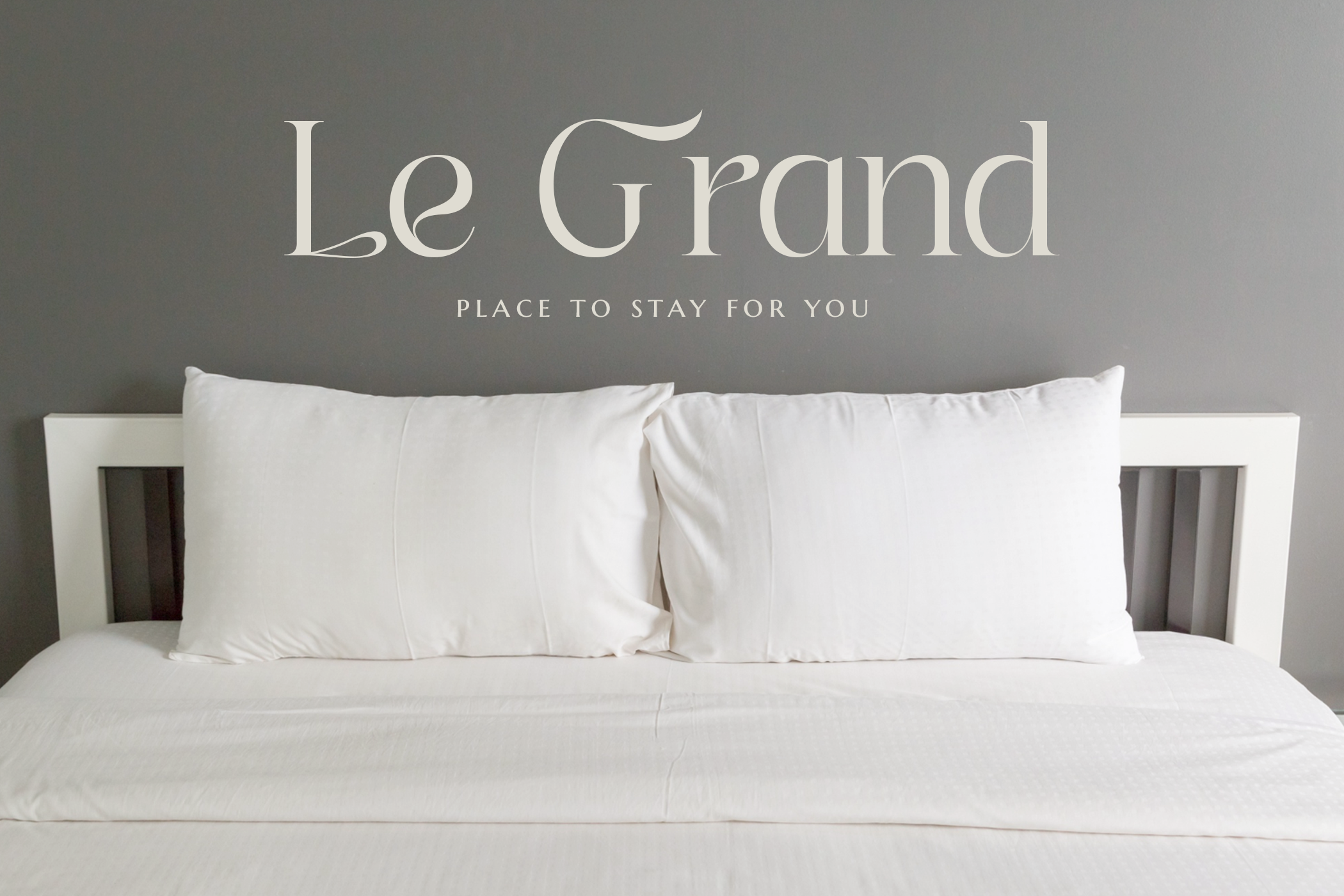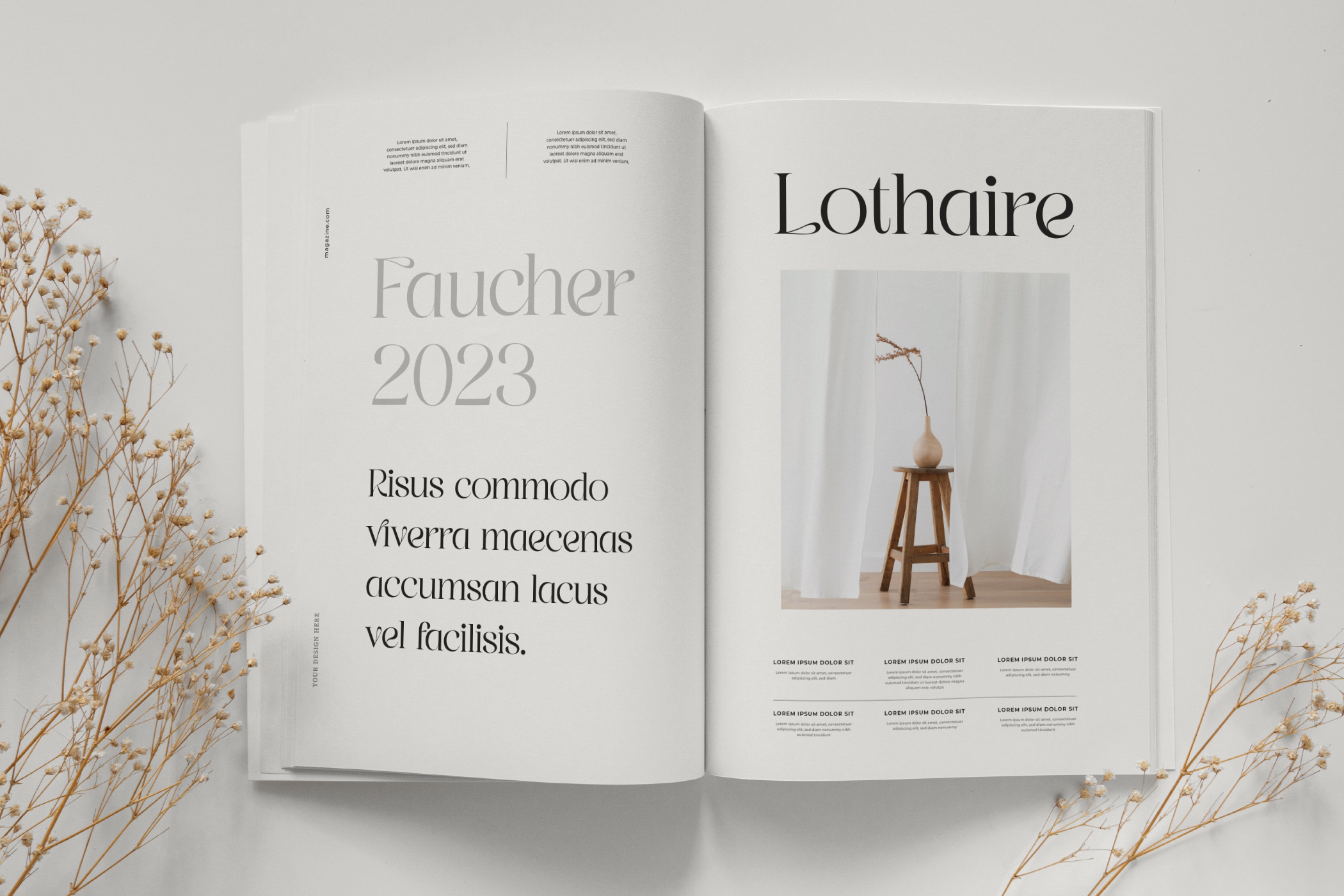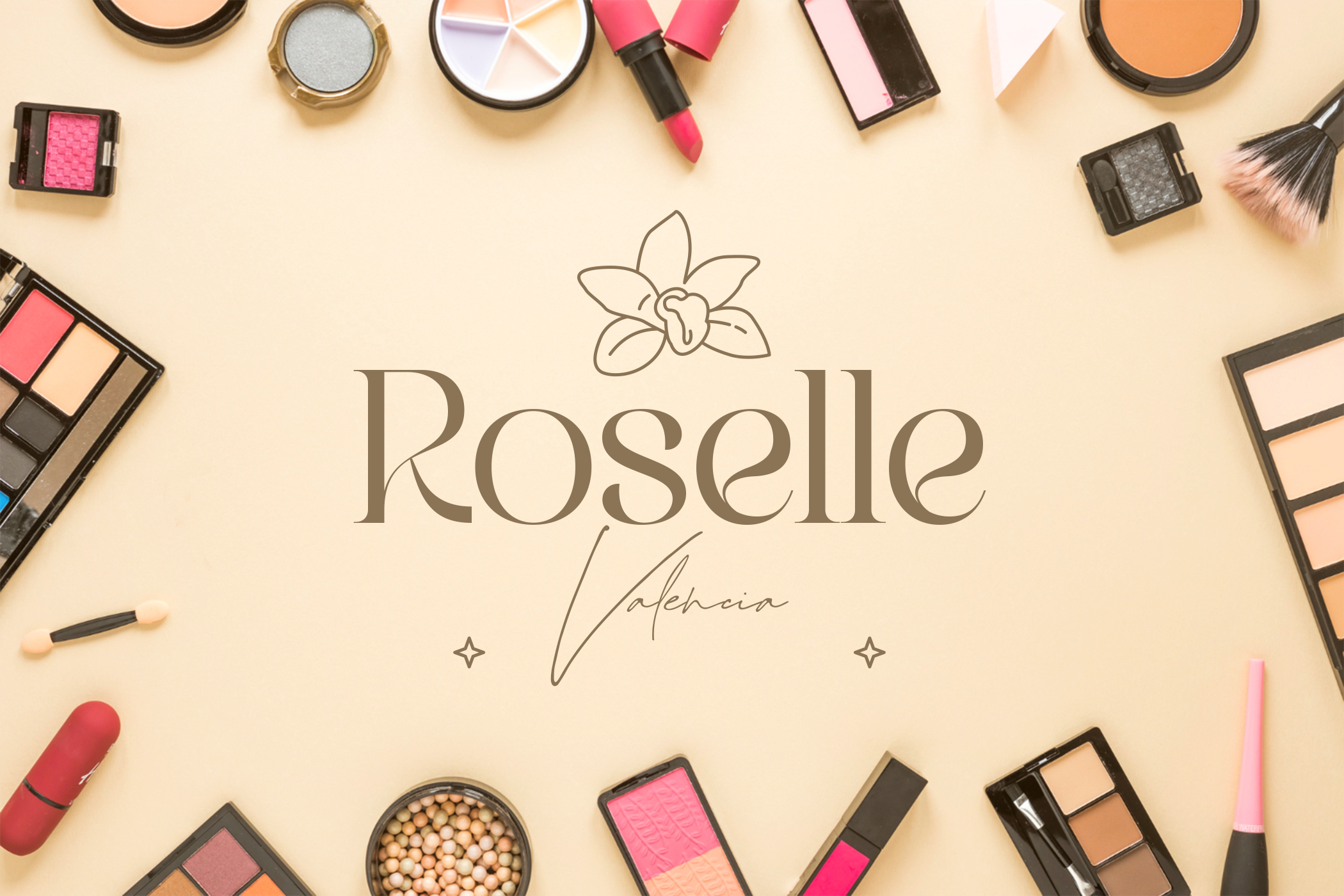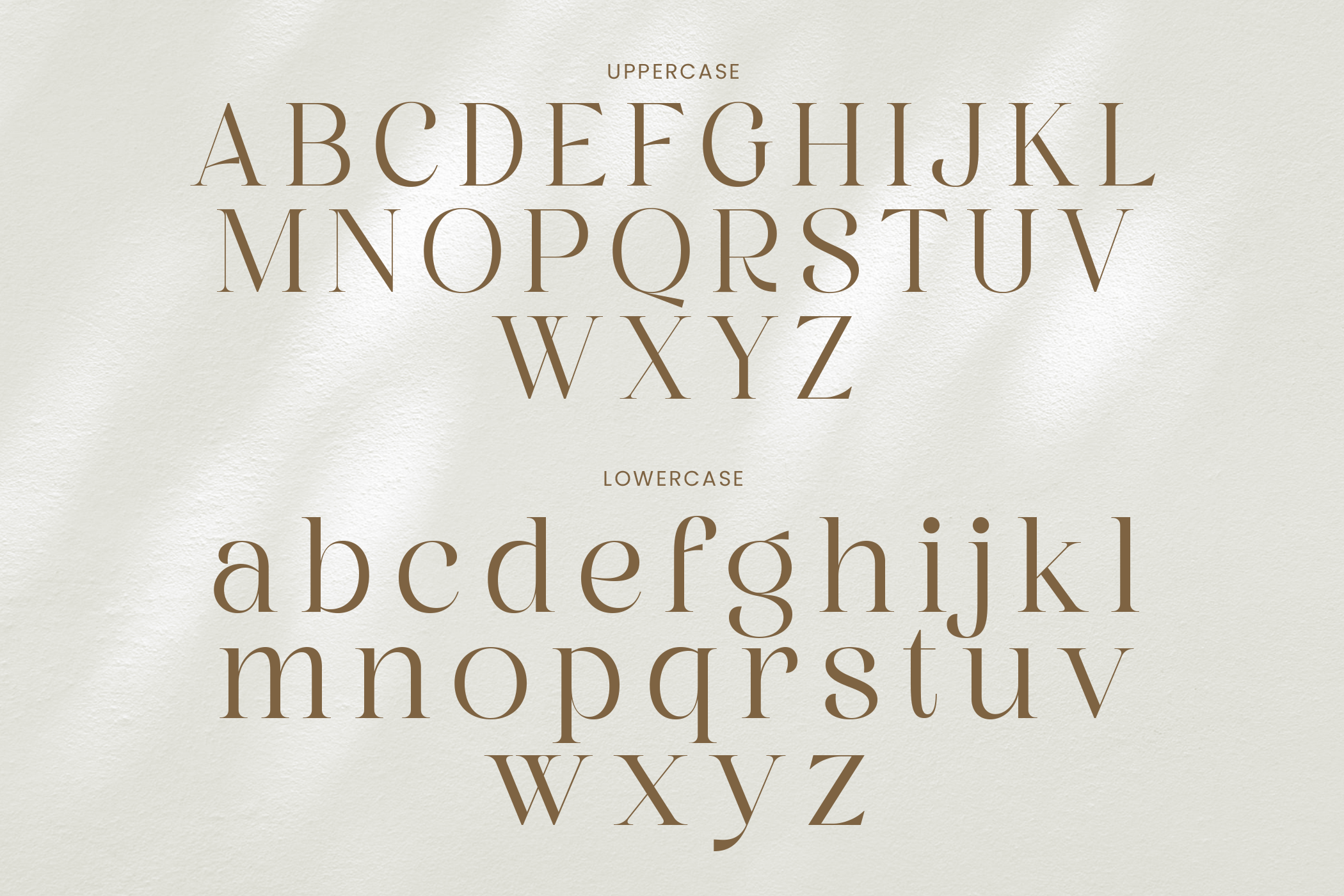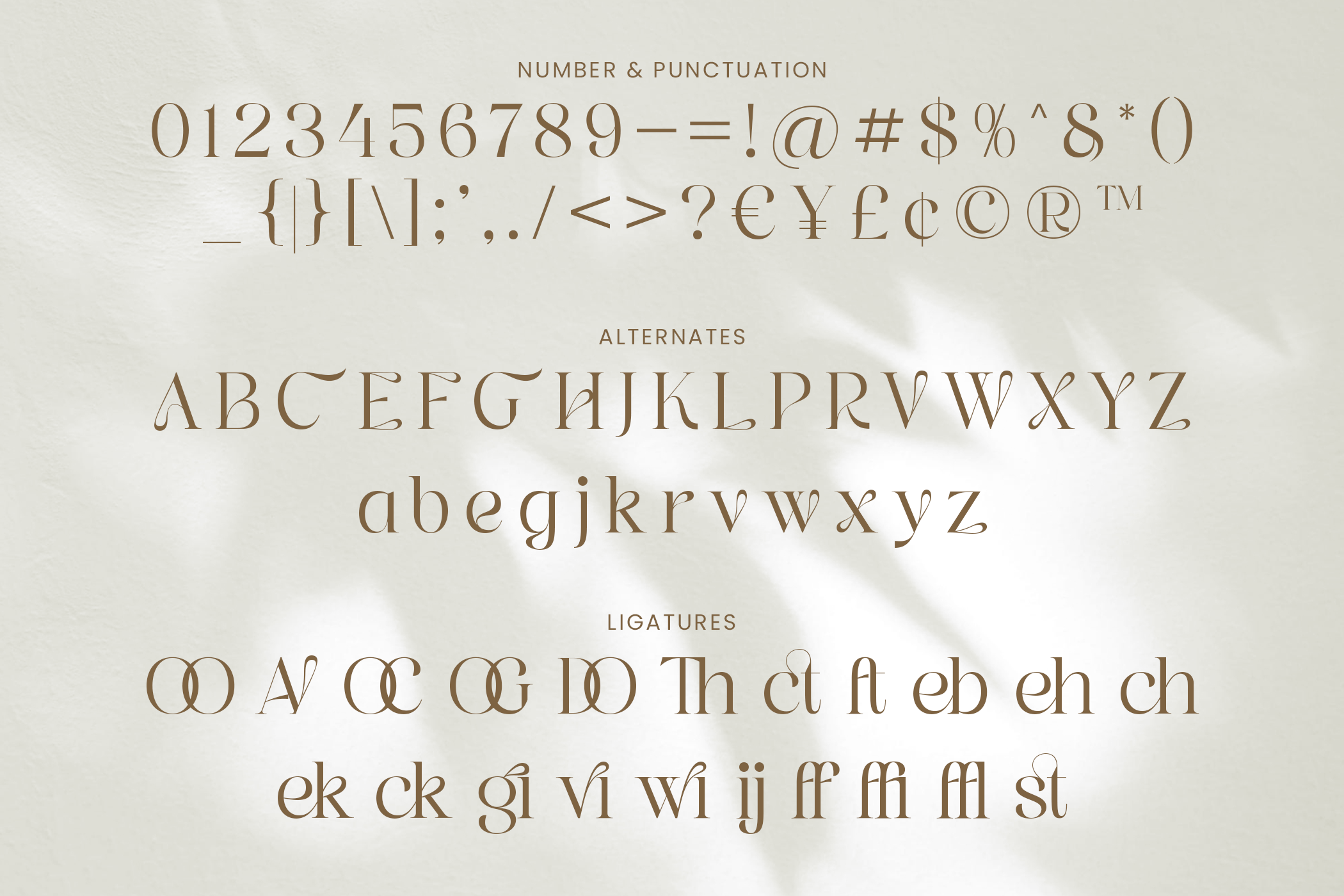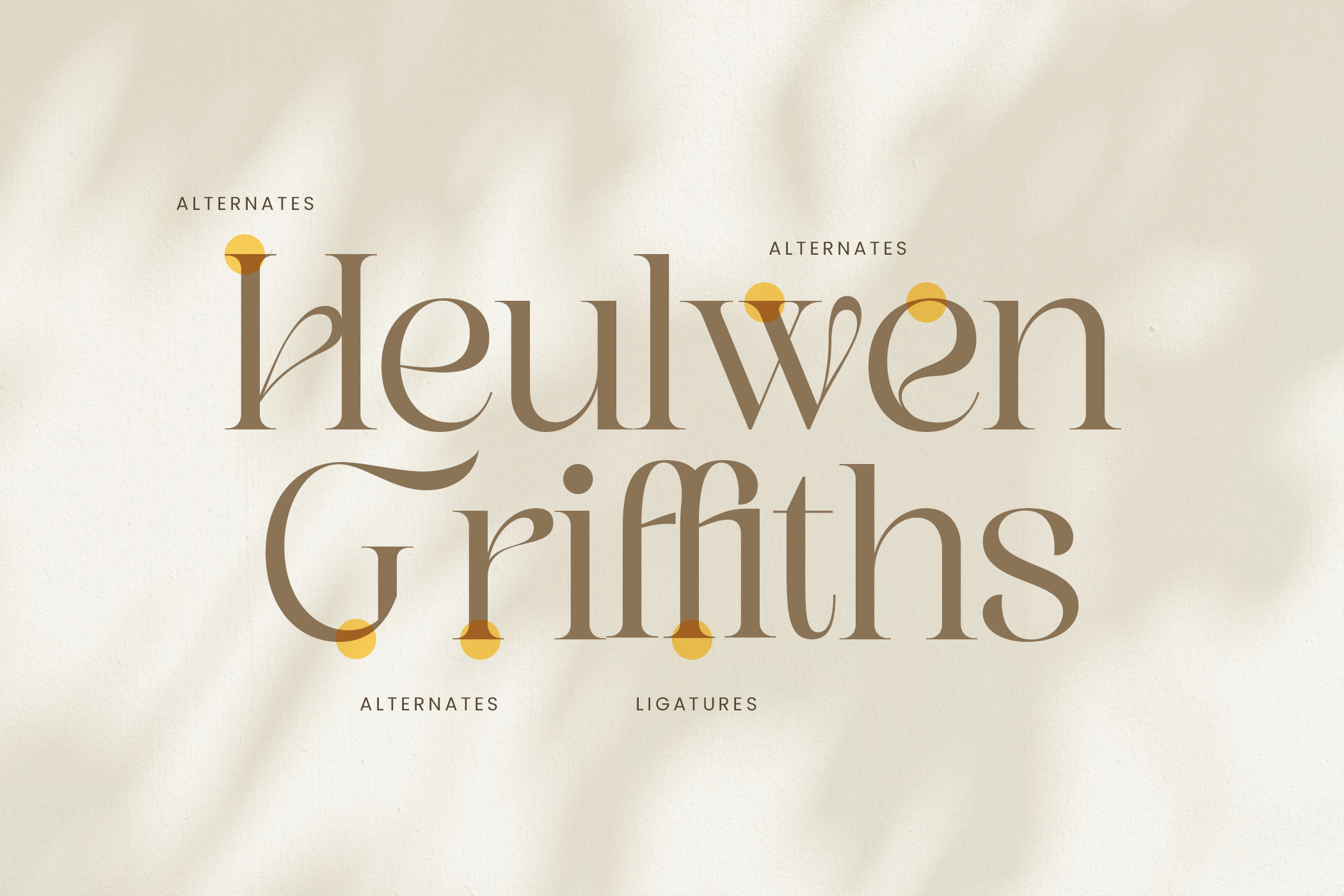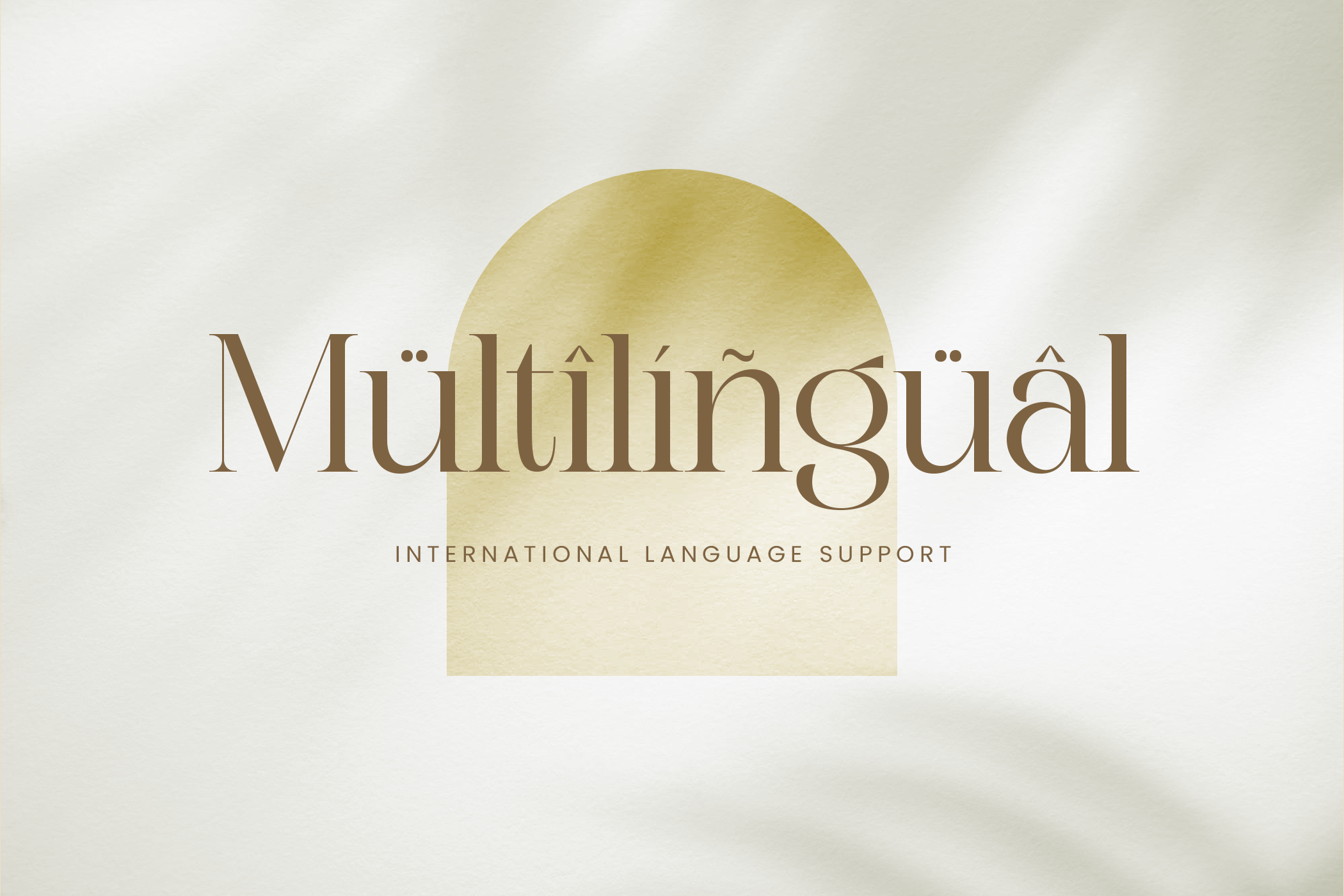
Graphire, the modern elegant serif typeface with a twist, using the contrast between lines and curves reflecting your brand’s sophistication
Graphire is perfect for branding projects, logos, wedding designs, social media posts, advertisements, product packaging, product designs, label, photography, watermark, invitation, stationery, and any projects that need handwriting taste.
- Fonts include multilingual support for; Afrikaans, Albanian, Czech, Danish, Dutch, English, Estonian, Finnish, French, German, Hungarian, Italian, Latvian, Lithuanian, Norwegian, Polish, Portuguese, Slovak, Slovenian, Spanish, Swedish.
Graphire Modern Elegant Serif